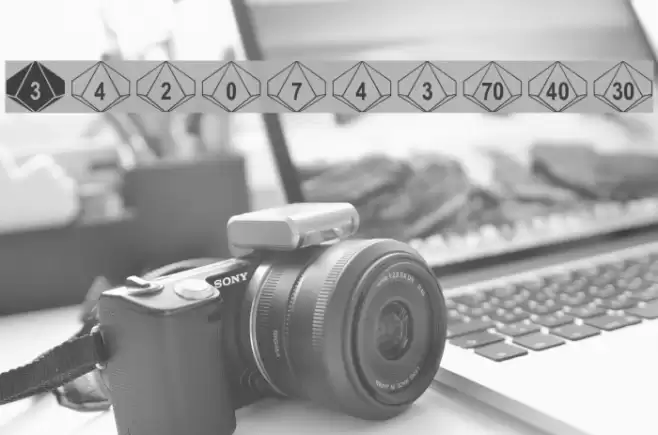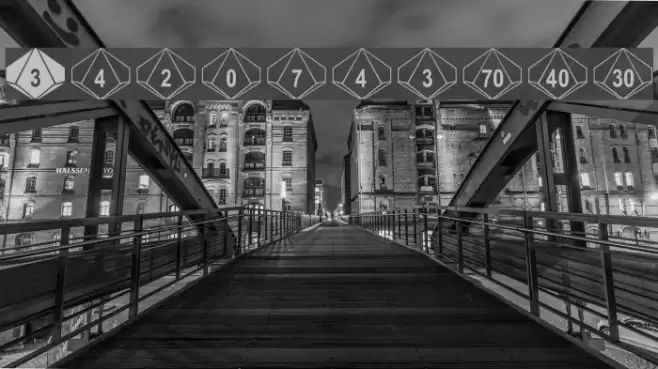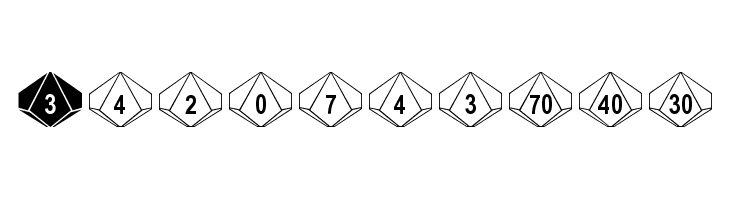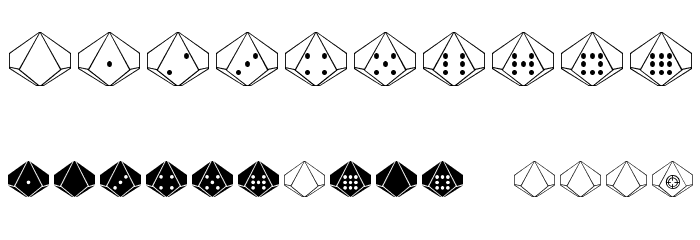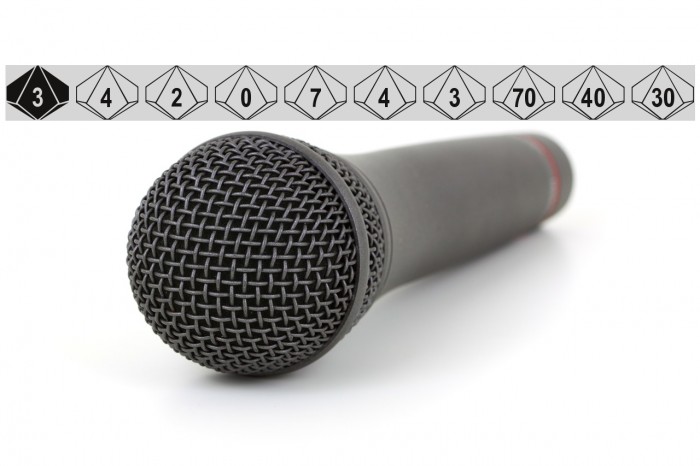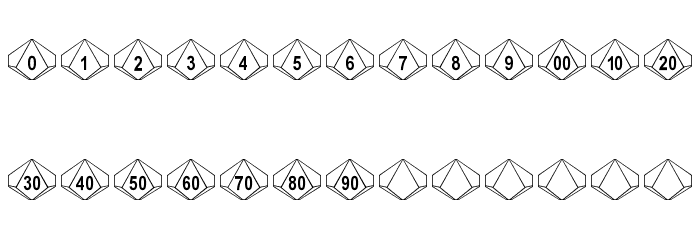
Decahedron Font
Decahedron Description
A geometric, dice-inspired symbol set where each character or number is enclosed within a stylized decahedron (ten-sided polyhedron) outline, available in both filled and outlined versions. The set includes numerals, double-digit numbers, and dot patterns reminiscent of dice faces.
Geometric decahedron dice symbol font with numbers and dot patterns from Dingbats fonts.
- Proposed Projects: Tabletop gaming materials, board game design, educational math tools, RPG manuals, themed posters.
- Overall Style: Decorative, Geometric, Thematic
- Use Case: Game design, Themed headings, Educational visuals, Infographics